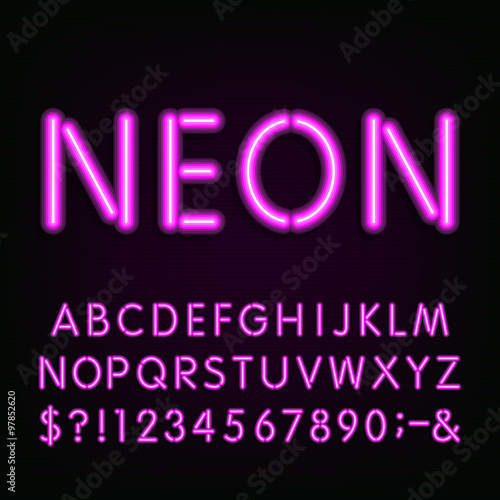
Neon Light Alphabet Font. Type letters, numbers and symbols. Purple neon tube letters on the dark background. Vector typeface for labels, titles, posters etc.